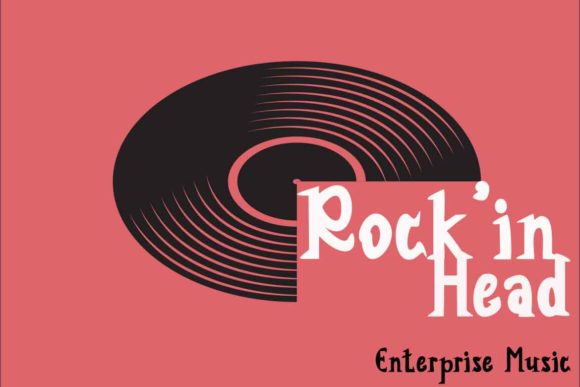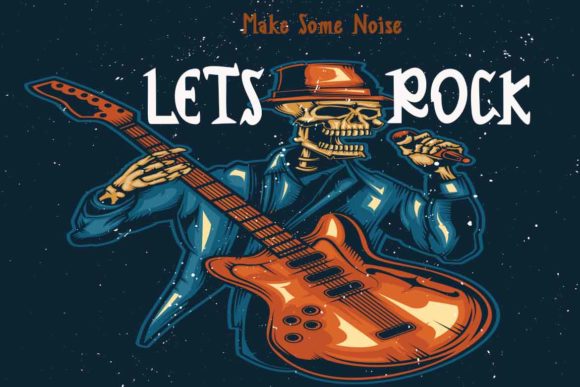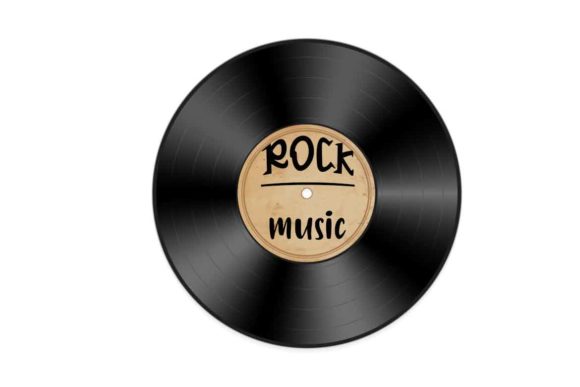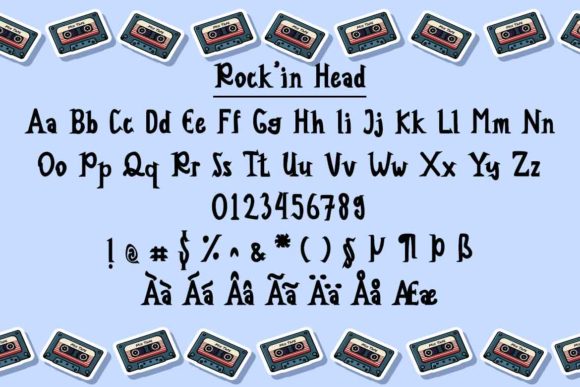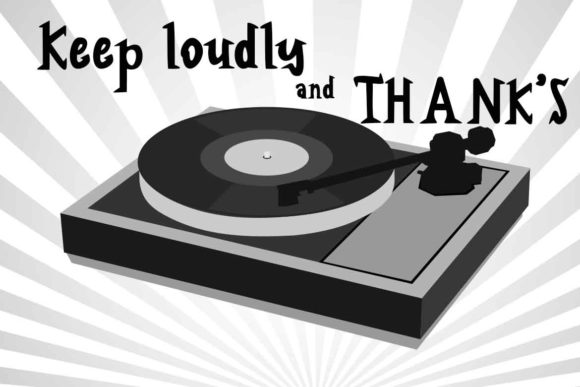
Rock in Head Font
About Rock in Head Font
Rock in Head is a groovy and unique handwritten font. Take your designs to the next level with this amazing font!